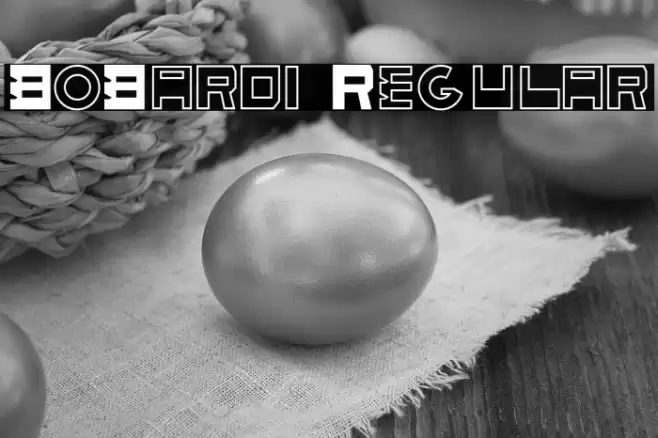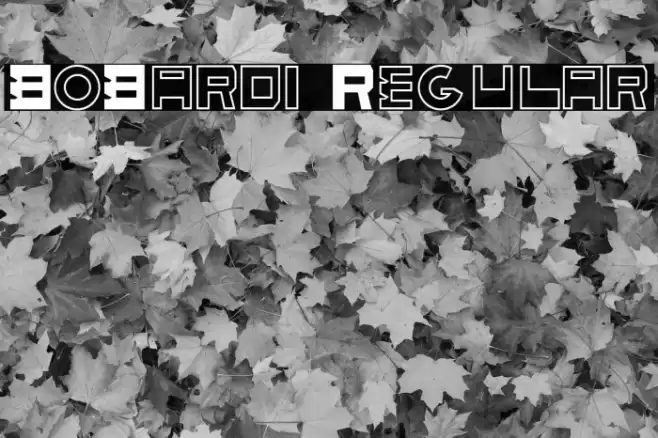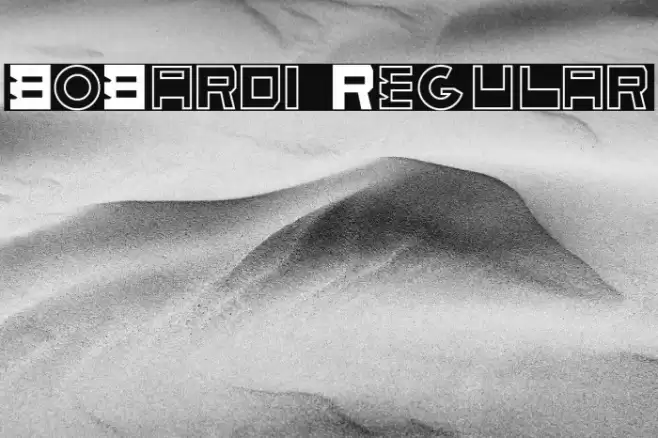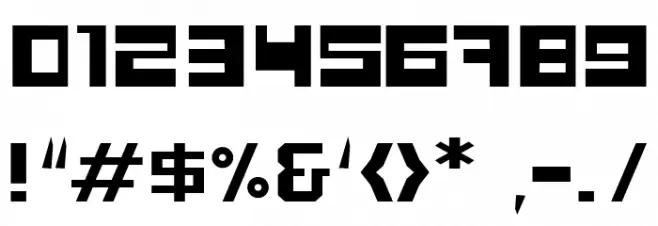
BoBardi Regular Font
BoBardi Regular Description
This font exhibits a bold and geometric style with a strong emphasis on angular shapes and sharp edges. The uppercase letters are characterized by their blocky and robust appearance, while the lowercase letters maintain a consistent geometric form. The numerals are equally bold, ensuring clear readability. Special characters are designed to match the overall aesthetic, providing a cohesive look across all glyphs. The font's design is modern and striking, making it suitable for projects that require a contemporary and impactful visual presence.
A bold, geometric font with angular shapes and a modern aesthetic from Regular fonts.
- Proposed Projects: Ideal for branding, posters, headlines, and any design work that requires a strong, modern impact.